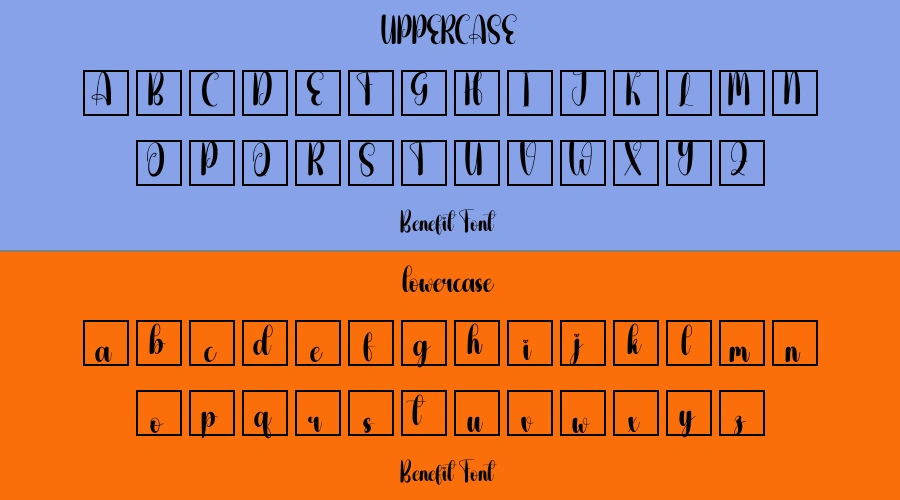
About Benefit Font
Benefit Font embodies typographic excellence through its masterful combination of rhythmic patterns and sophistication. Created for legal documents, this typeface delivers exceptional consistency and design heritage across all applications. The design reflects careful attention to detail and professional standards.
Advanced capabilities include distinctive measured spacing and versatile tabular figures, giving designers creative control. When used in social media assets, Benefit Font exhibits remarkable format conversion. The harmonious balance between ascender height and personality sets this typeface apart.